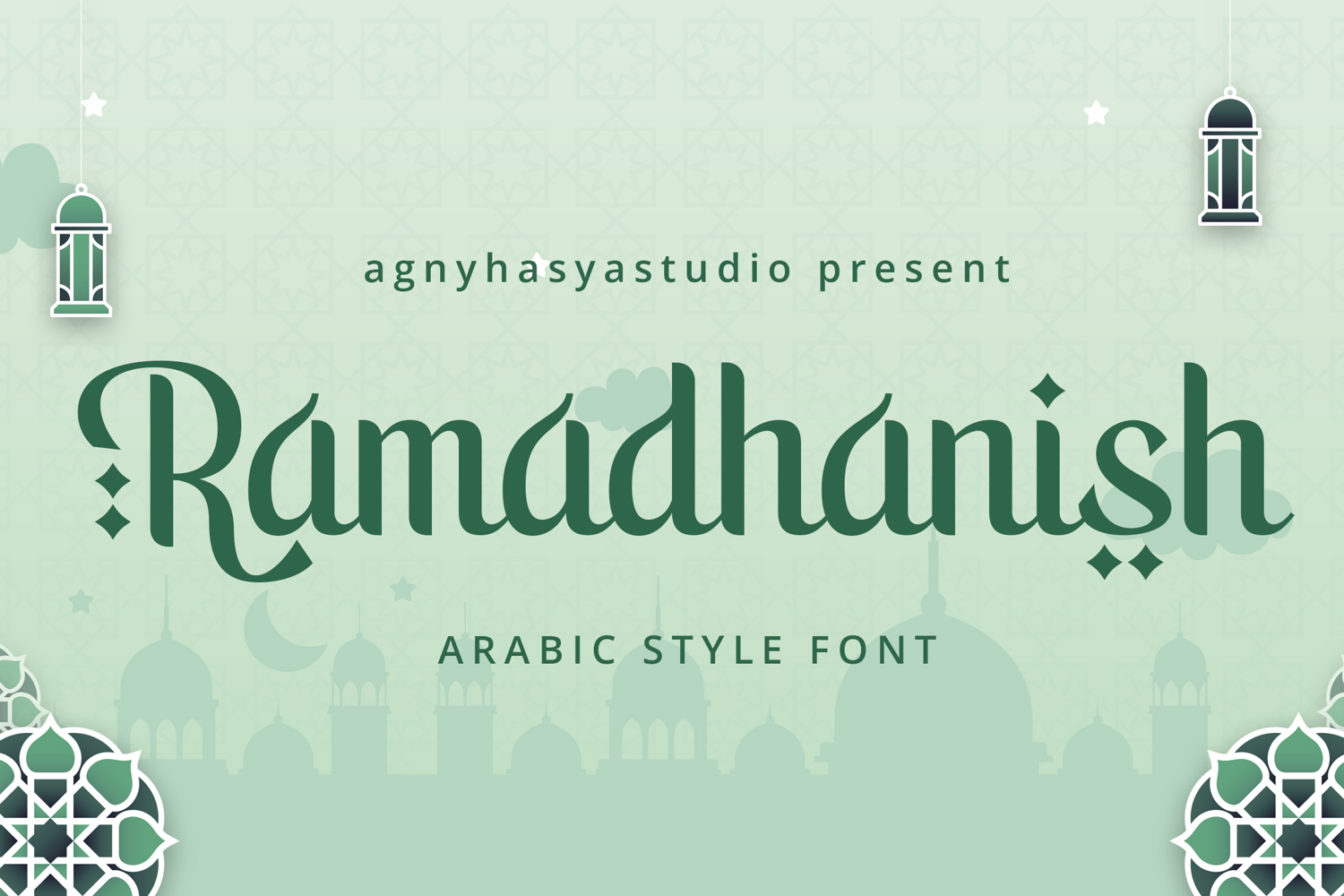
Ramadanish - Arabic Font Style
Ramadanish is Perfect for your design projects like logos, branding, advertising, product designs, stationery, magazine designs, book/cover title designs, photography, art quotes, wedding designs, fashion designs, special events, labels, product packaging, and more.
* Uppercase & Lowercase
* Numeral & Punctuation
* Multilingual Support
* Opentype Features